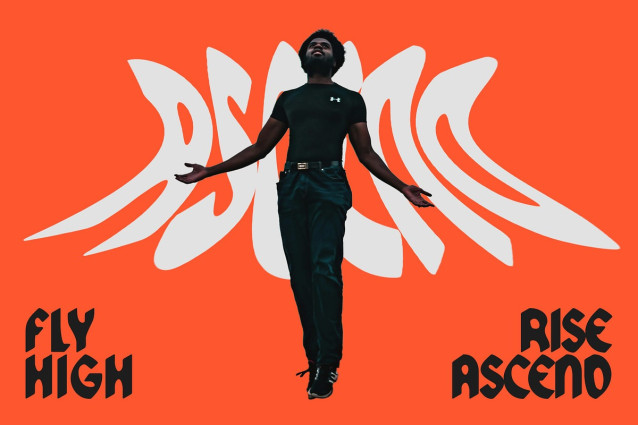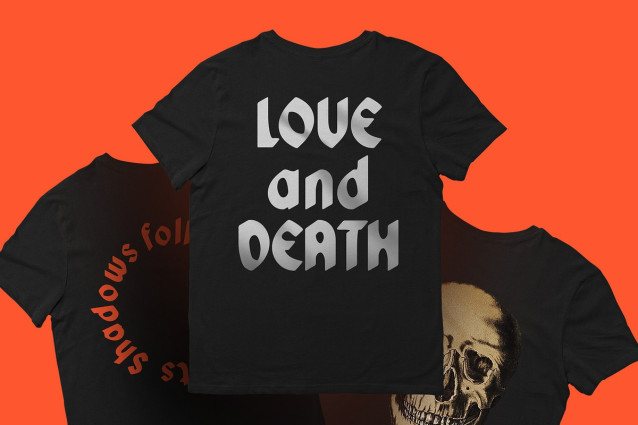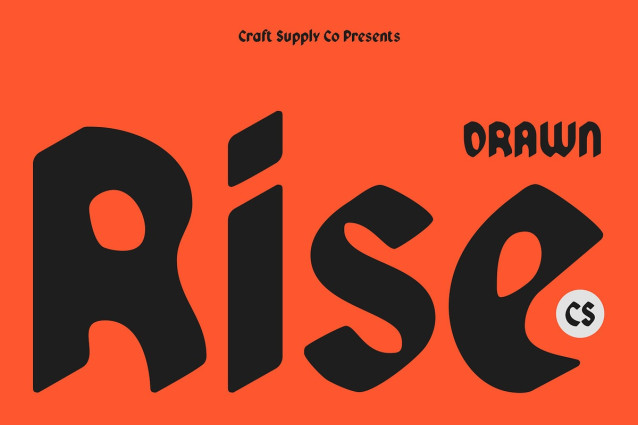
CS Rise Drawn Font
CS Rise Drawn Font is a modern blackletter display font that combines the traditional gothic structure of old manuscript lettering with a bold, updated visual style. Its broken strokes and angular forms evoke classic calligraphic heritage, while the overall composition embraces a contemporary, daring aesthetic ideal for making bold typographic statements.
Drawn Effect for a Raw, Handcrafted Look Infused with a drawn effect, the font showcases an organic, textured quality—as if sketched by hand—adding depth and visual authenticity. This imperfect finish injects personality and warmth into its structured form, resulting in a rugged yet expressive tone that’s especially appealing for creative and edgy design settings.
Bold Structure for Dramatic Impact With its heavy weight and high contrast, this artistic font delivers an intense visual presence that commands attention. The boldness amplifies its legibility in large-scale applications, making it perfect for display use where drama, individuality, and emotion are essential.
Ideal for Music, Streetwear, and Creative Branding Whether for music posters, street culture branding, editorial layouts, or alternative visual identities, this bold and dominant font offers a unique blend of heritage and rebellious artistry. It’s the ideal font for creators who want to push boundaries while maintaining a sense of craftsmanship, power, and visual storytelling in their typography.